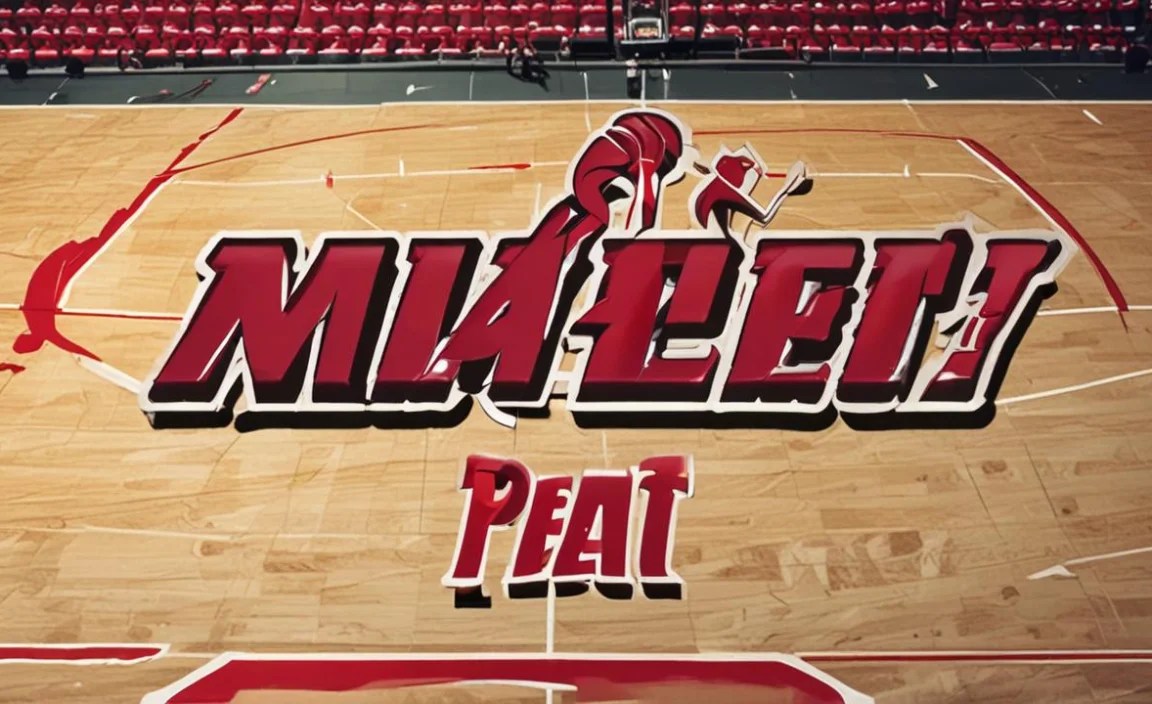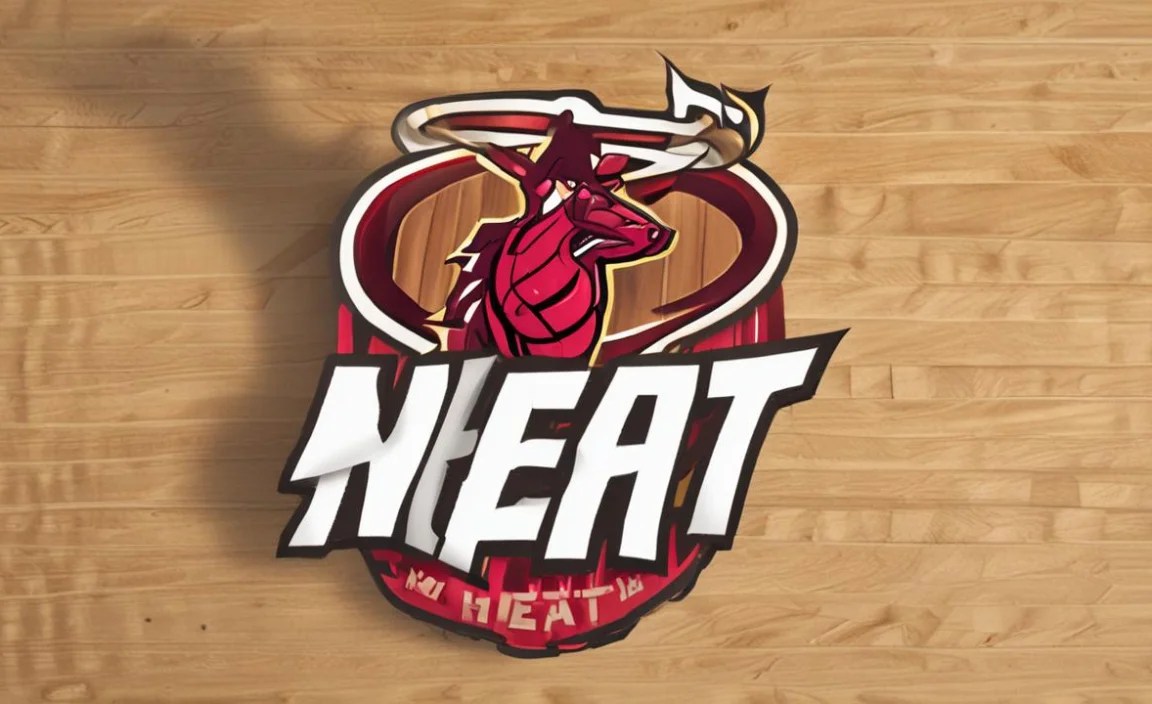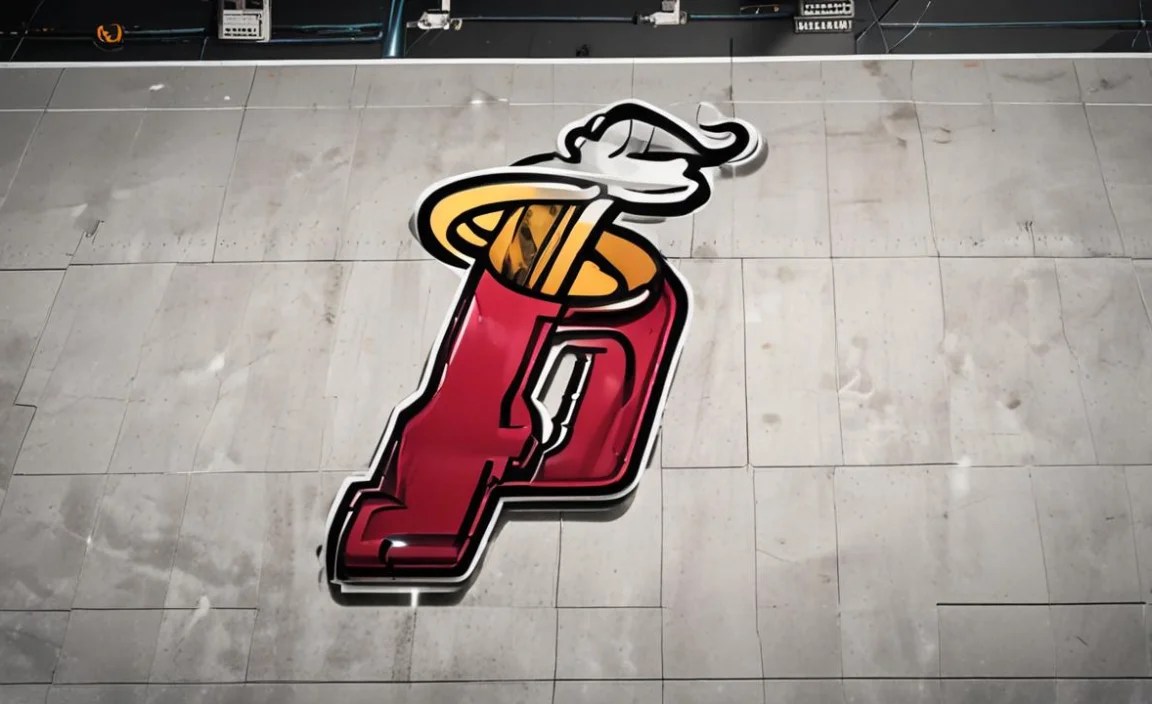
The Miami Heat Font, often associated with the iconic NBA team, represents more than just a typeface; it embodies the energy, intensity, and passion of Miami Heat basketball.
This font plays a significant role in the team’s branding, helping to create a strong visual identity that resonates with fans and sports enthusiasts alike.
Miami Heat Font Information
| Name | Miami Heat Font |
| Style | Sans-serif, Script |
| Designer | Custom Design (inspired by various athletic fonts) |
| Type | Sports, Custom Font |
Miami Heat Font Family Includes
- Miami Heat Regular
- Miami Heat Italic
- Miami Heat Bold
- Miami Heat Bold Italic
- Miami Heat Condensed
- Miami Heat Condensed Italic
- Miami Heat Script
- Miami Heat Script Bold
- Miami Heat Display
- Miami Heat Display Bold
- Miami Heat Vintage
Where Miami Heat Font Is In Use
The Miami Heat Font is integral to the team’s identity across various media platforms. Its bold, energetic look makes it perfect for sports branding and fan merchandise. Notable uses include:
- Miami Heat team jerseys
Miami Heat Font Alternative
2. Why Is The Miami Heat Font Popular In Sports Branding?
Miami Heat Font captures the team’s energy and passion, making it a perfect fit for sports branding and fan engagement.
3. What Trends Are Shaping The Future Of The Miami Heat Font?
The future of Miami Heat Font includes continuing to use digital platforms, social media, and interactive fan experiences, keeping pace with modern sports marketing trends.
4. When Did The Miami Heat Adopt Its Iconic Font?
The Miami Heat adopted its distinctive font early in the team’s branding, aligning it with its strong and energetic image.
5. What Free Font Is Closest To Miami Heat Font?
Fonts like “Bebas Neue” and “Varsity” offer similar athletic and bold styles, making them free alternatives to Miami Heat Font.
6. How Many Fonts Are In The Miami Heat Font Family?
The Miami Heat Font family includes various styles and weights, from Regular to Bold, with the script and condensed versions available, providing versatility for different branding needs.
7. What Are The Different Versions Of The Miami Heat Font?
The Miami Heat Font family includes styles like Regular, Bold, Italic, Script, and Display, along with vintage and condensed versions, offering a wide range of branding and design.